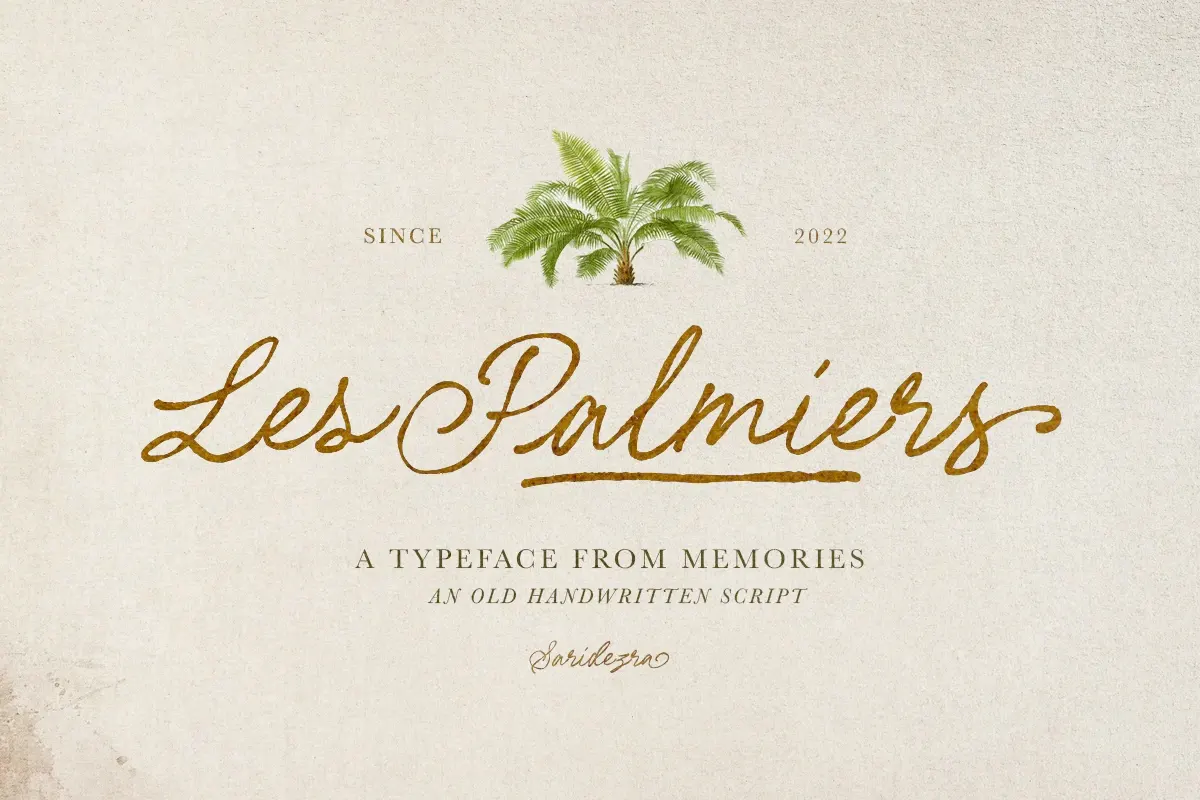
Les Palmiers - Handwritten Script Free Download
Les Palmiers - Handwritten Script Font Free Download is a charming and breezy script typeface that captures the relaxed elegance of hand-drawn lettering. Ideal for wedding stationery, social media posts, branding, and lifestyle designs, this font adds a personal, stylish touch to any project. Please note that you must purchase this font for commercial use, but it is available as a free download for testing purposes. Embrace the effortless vibe of handwriting with Les Palmiers - Handwritten Script Font Free Download and let your designs flow with warmth and creativity.